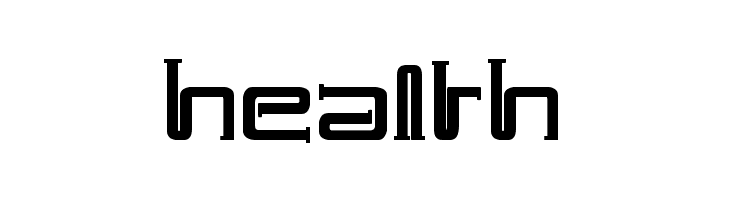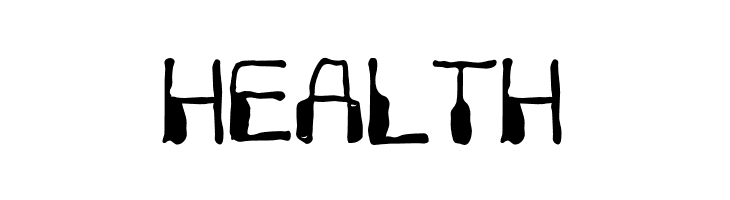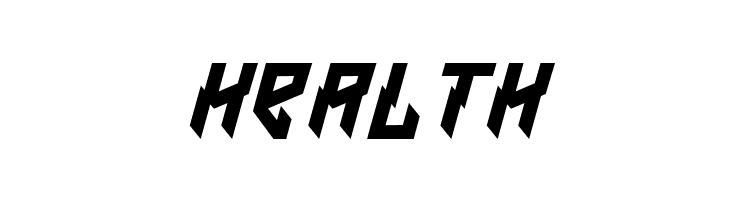
A playful, handwritten-style font with rounded, irregular strokes.
A bold, angular, and futuristic font with a geometric style.
A bold, geometric font with a futuristic and tech-inspired design.
A textured, stippled font with a hand-drawn, artistic style.
A bold, decorative font with a 3D shadow effect and striped pattern.
A modern, geometric font with a futuristic and technical design.
A bold, distressed font with a grunge-like, hand-drawn appearance.